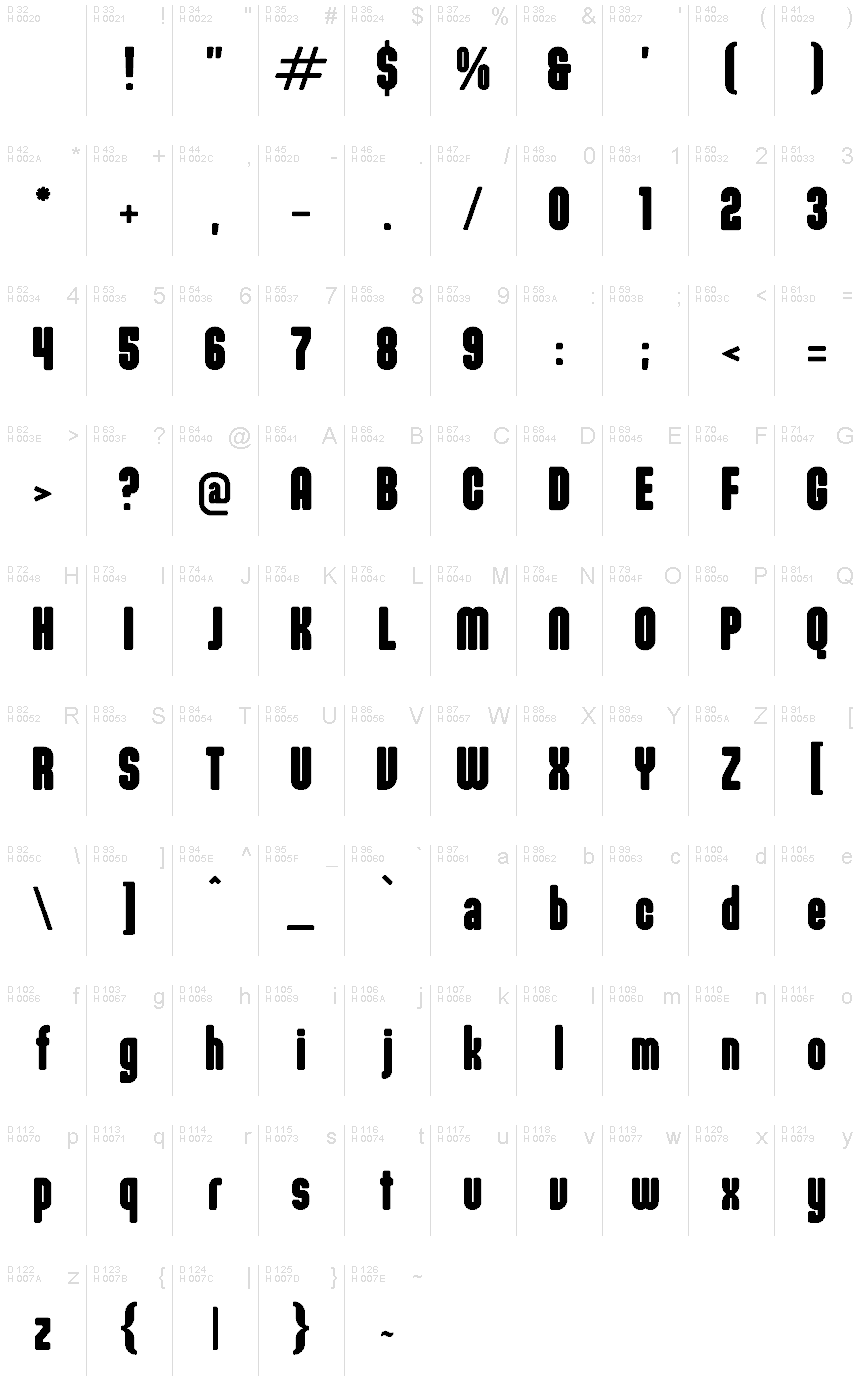
Widemon
Widemon font by Storytype Studio is a bold, condensed sans serif font designed to have a strong presence. The turn back of the designer to geometric and rounded letters allowed him to capture a retro appearance while maintaining modern aesthetics. This makes it an impactful display typeface suitable for professional and non-professional projects.
This free sans serif font takes itself well for developing magazine covers, Youtube thumbnails, website headers or footers, advertising posters, and packaging. Possible other uses include branding names/logos for products or businesses as well as social media profile visuals like story backgrounds.